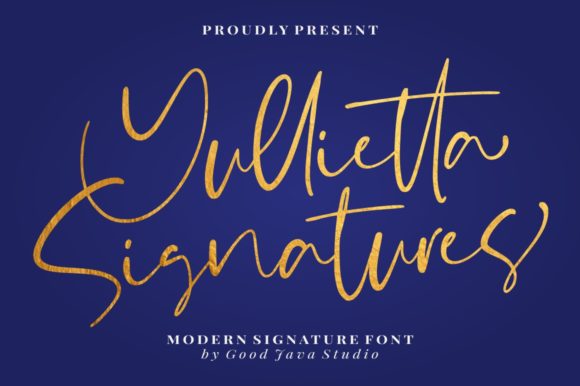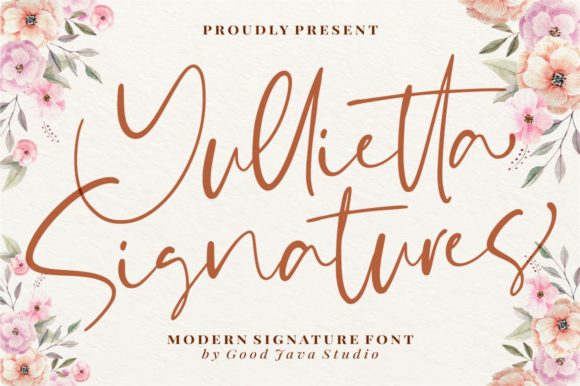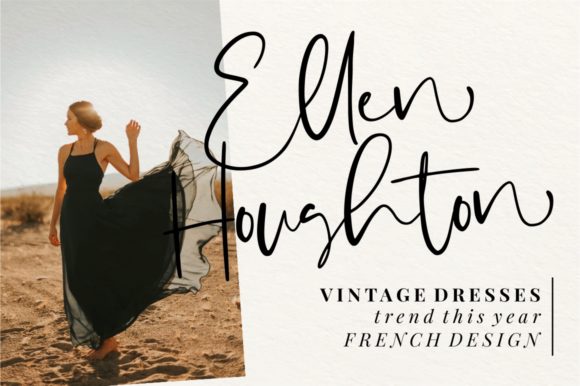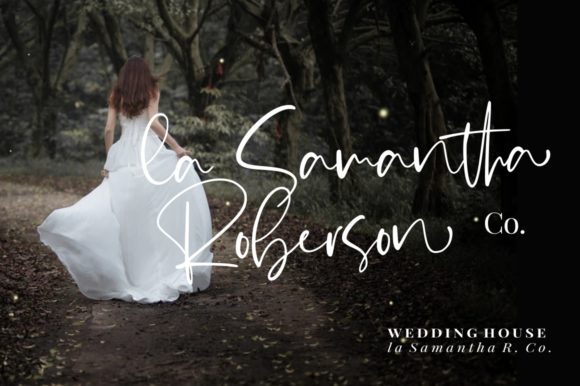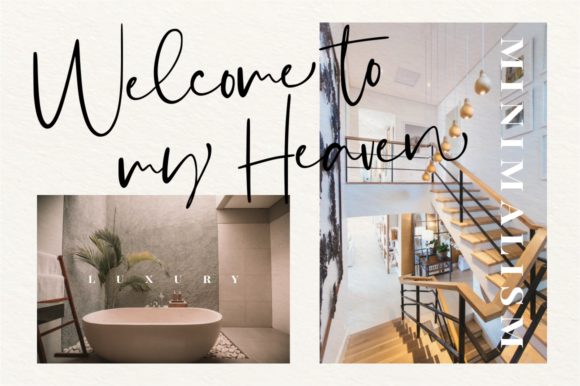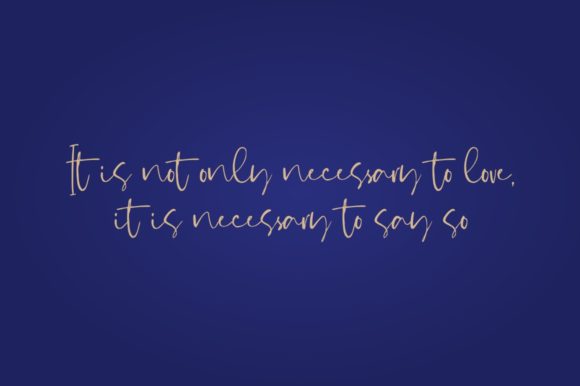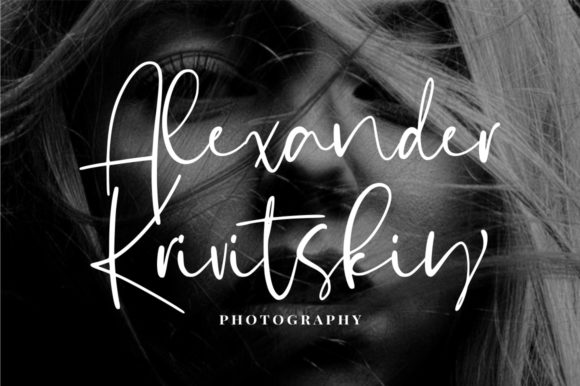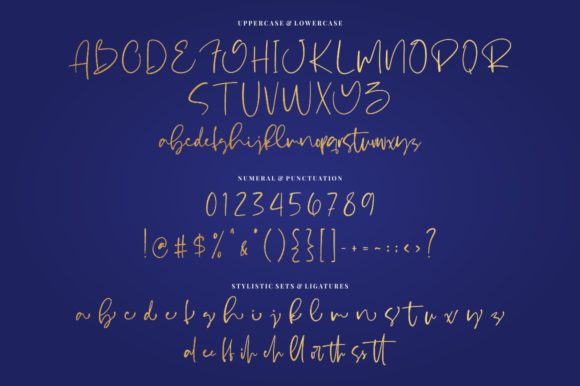
HomeScript FontsYullietta Font Script Fonts Yullietta Font FacebookXPinterestWhatsApp Yullietta Font Poster 2 Yullietta Font Poster 3 Yullietta Font Poster 4 Yullietta Font Poster 5 Yullietta Font Poster 6 Yullietta Font Poster 7 Yullietta Font Poster 8 Yullietta Font Poster 9 Yullietta Font Poster 10 Yullietta Font Poster 11 About Yullietta Font Yullietta is a gorgeous script font that radiates charm. Use it to turn any design project into a true standout. DOWNLOAD NOW People also explored Sweet Smile Font Graceful Font Quick Blackletter Delirium Font Exercise Font Behind Font Oh Monkey Font Fleur Denuit Font Aiwoke Font 318 0 TagsYullietta Font Previous articleHiltobe FontNext articleBright Sunkiss Font LEAVE A REPLY Cancel reply Comment: Please enter your comment! Name:* Please enter your name here Email:* You have entered an incorrect email address! Please enter your email address here Website: Save my name, email, and website in this browser for the next time I comment. Personal Use Free Krase Personal Use Free Read more about this font Mike Ferrari 16017 Personal Use Free Read more about this font Hashira Mt Personal Use Free Read more about this font Hatchill Personal Use Free Read more about this font BLOG To increase your work productivity, choose the most readable fonts. In today's fast-paced work environment, where digital communication and information consumption are integral to our daily routines, the choice of fonts can significantly impact... Fonts That Capture the Spirit of New York City Free Fonts Risk: Why Free Fonts Can Be Dangerous for Designers Exploring Font Trends